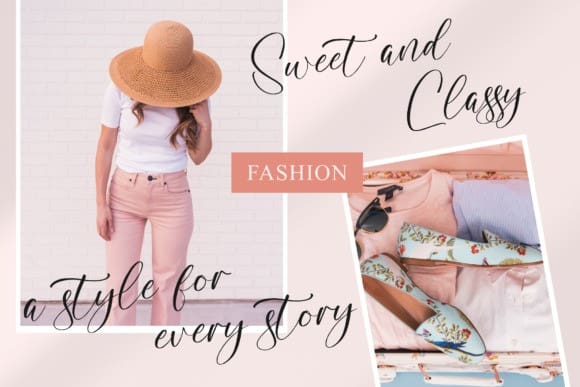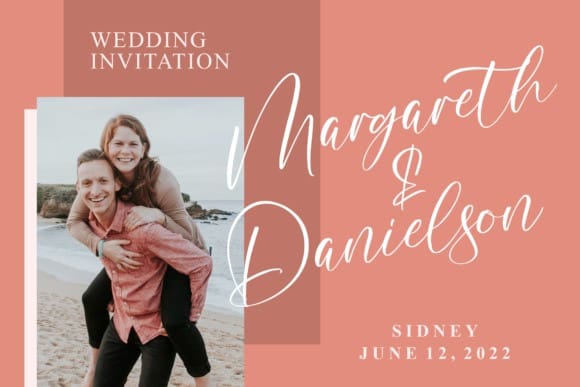
Nosttalgic Script Font
Nosttalgic Script Font, is a sweet and cursive handwritten script font. It will add a joyful and romantic touch to each of your projects! Perfectly fit for branding, logo, wedding things, greeting cards, fashion, lookbook, marketing promotion, anytime you want to look fancy elegant but still casual.